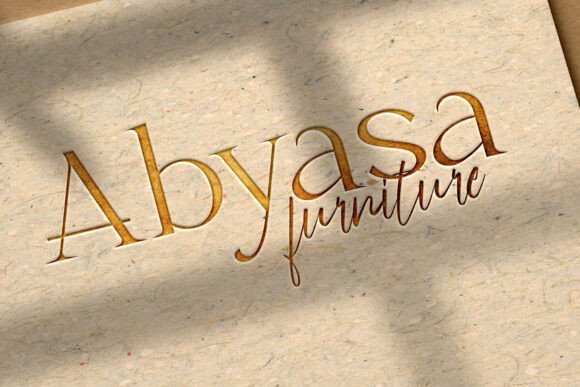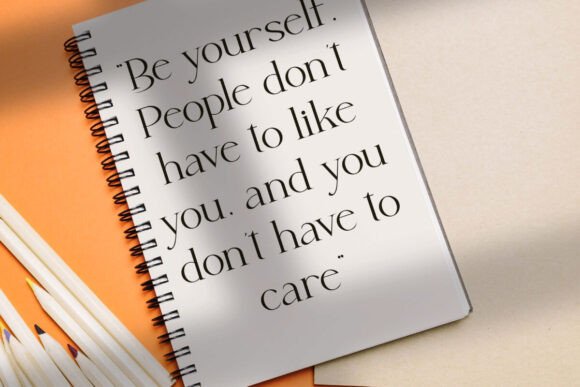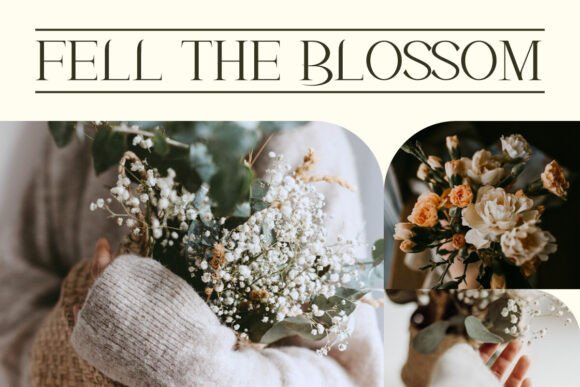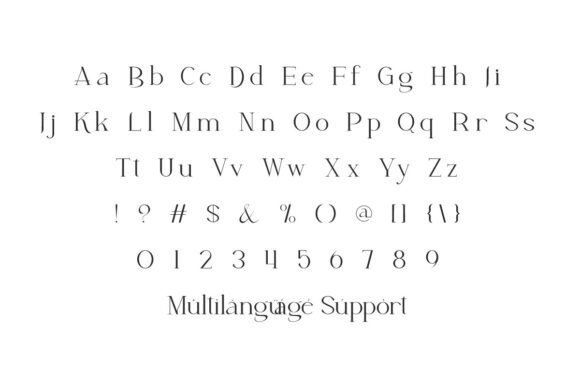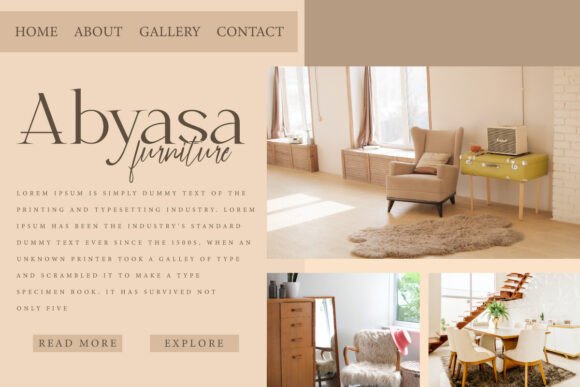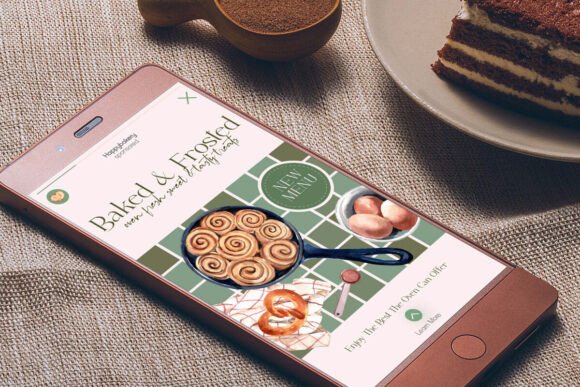
Introducing Decouple: The Ultimate Serif Font for Modern Businesses
In the world of typography, a well-crafted font can make all the difference in elevating your brand’s visual identity. If you’re a designer, craftsperson, or business owner looking for a sophisticated and modern serif font, look no further than Decouple. This classy minimalist serif font is designed to enhance your business, regardless of your industry.
What is Decouple Font?
Decouple is a thoughtfully designed serif font that exudes a sense of modernity and sophistication. Its clean lines, subtle curves, and balanced proportions make it an ideal choice for businesses seeking a professional and elegant visual presence. Whether you’re an architect, baker, boutique owner, or photographer, Decouple font is sure to elevate your brand’s image.
Industries that Benefit from Decouple Font
Decouple font is versatile and can be applied to various industries, including:
- Architecture: Add a touch of sophistication to your building designs, brochures, and marketing materials.
- Bakery: Elevate your brand with a font that conveys warmth, comfort, and quality.
- Boutique: Create a luxurious and exclusive atmosphere with Decouple’s elegant typography.
- Café: Perfect for menus, signage, and promotional materials that require a modern and inviting feel.
- Construction: Use Decouple to convey professionalism, reliability, and attention to detail.
- Cosmetic: Enhance your brand’s beauty and elegance with a font that exudes sophistication.
- Craftsman: Add a touch of artisanal charm to your branding, packaging, and marketing materials.
- Event Organizer: Create stunning invitations, programs, and promotional materials with Decouple.
- Fashion: Perfect for clothing brands, fashion designers, and style influencers seeking a modern and chic font.
- Florist: Convey elegance and refinement with Decouple’s beautiful typography.
- Furniture: Use Decouple to showcase your furniture designs, catalogs, and marketing materials.
- Interior Design: Elevate your brand with a font that reflects your attention to detail and style.
- Jewelry: Add a touch of luxury and sophistication to your branding, packaging, and marketing materials.
- Photography: Perfect for photographers seeking a modern and elegant font for their portfolios and promotional materials.
- Printing and Publishing: Use Decouple for book covers, magazines, and other print materials that require a sophisticated font.
- Real Estate: Convey professionalism, reliability, and style with Decouple.
- Restaurant: Elevate your brand with a font that reflects your culinary expertise and hospitality.
- Skincare and Spa Salon: Use Decouple to convey a sense of luxury, relaxation, and rejuvenation.
- Wedding: Create stunning wedding invitations, programs, and promotional materials with Decouple.
- Writer: Perfect for authors, bloggers, and writers seeking a modern and elegant font for their publications.
Why Choose Decouple Font?
Decouple font offers several benefits, including:
- Unique and distinctive design: Decouple’s minimalist serif design sets it apart from other fonts, making it perfect for businesses seeking a unique visual identity.
- Versatility: Decouple can be used for various applications, from print materials to digital platforms.
- Elegance and sophistication: Decouple’s refined typography conveys a sense of luxury, professionalism, and style.
- Easy to read: Decouple’s clear and balanced design ensures that your message is conveyed effectively, making it perfect for body text and headings.
How to Use Decouple Font
Decouple font can be used for various applications, including:
- Branding and marketing materials: Use Decouple for logos, business cards, brochures, and other promotional materials.
- Print materials: Decouple is perfect for books, magazines, newspapers, and other print publications.
- Digital platforms: Use Decouple for website headers, social media graphics, and other digital applications.
In conclusion, Decouple font is an excellent choice for businesses and designers seeking a modern, elegant, and sophisticated serif font. Its versatility, unique design, and ease of use make it perfect for various industries and applications. Whether you’re looking to elevate your brand’s visual identity or create stunning marketing materials, Decouple font is sure to impress.